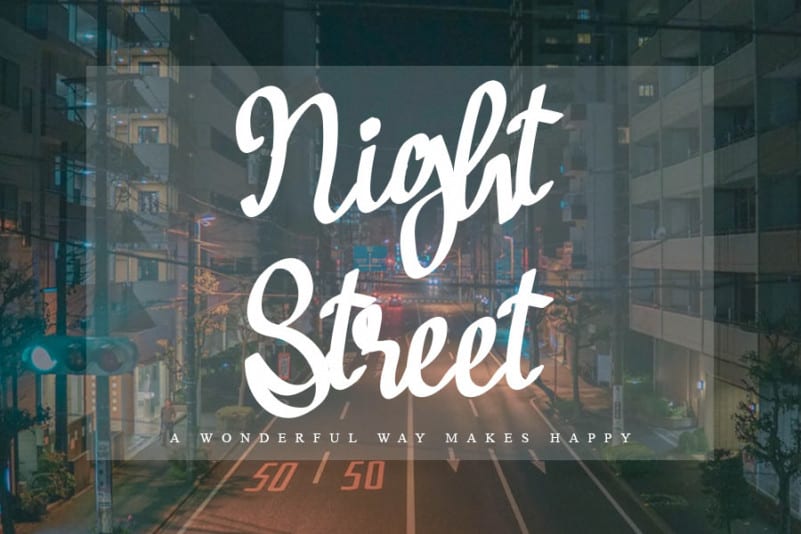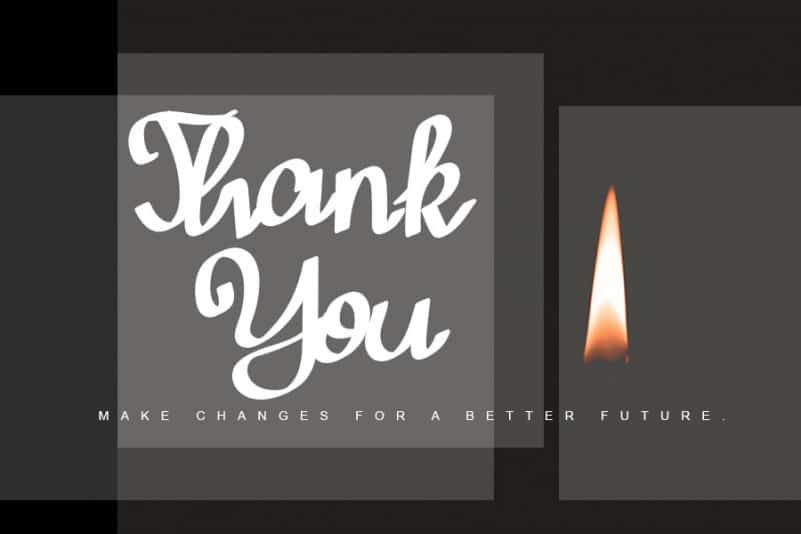
Adrenaline Brush Font
Adrenaline Brush Font is a great. It maintains its classy calligraphic influences while feeling contemporary and fresh. This versatility will appeal to a wide range of crafty ideas, from letterheads and titles to stationery.